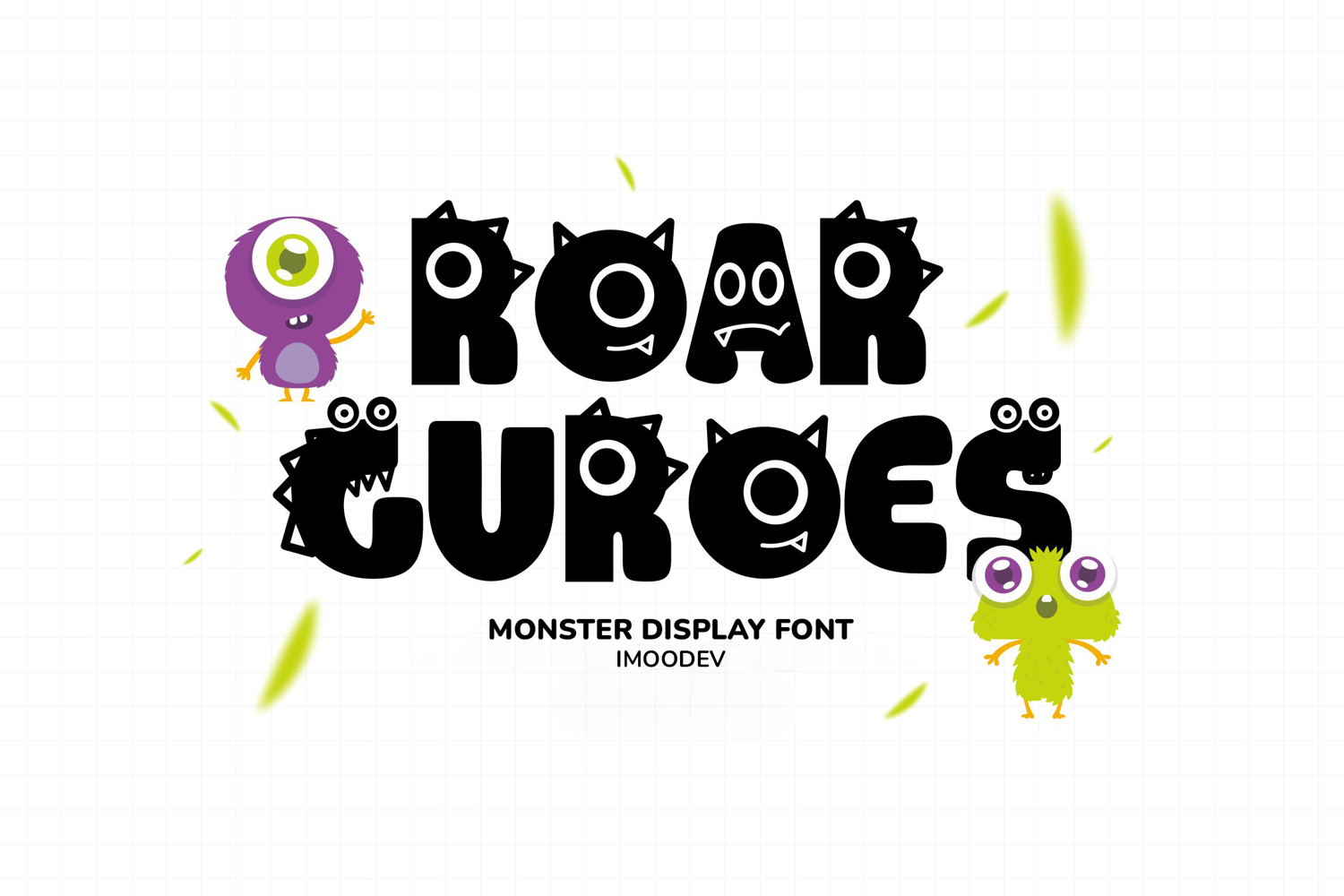
Roar Guroes - Monster Display Font
Roar Guroes font is a playful and bold monster display font packed with quirky character. Each letter is thick, rounded, and chunky, but with a fun twist, features such as googly eyes, sharp fangs, horns, spikes, or mouths integrated into their this font. This gives the font a lively, mischievous personality that feels both friendly and a little wild.
The font’s overall vibe is very youthful and whimsical, perfect for halloween themes, kids’ party invitations, children’s products, playful branding, games, children’s products (books, clothes, toys), birthday invitations, poster, or educational graphics, cartoons, or any design that needs a bold, fun monster touch.